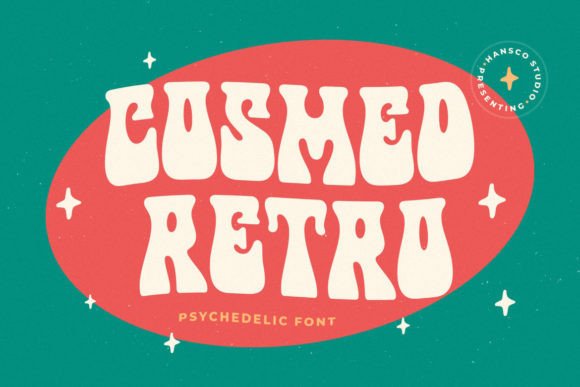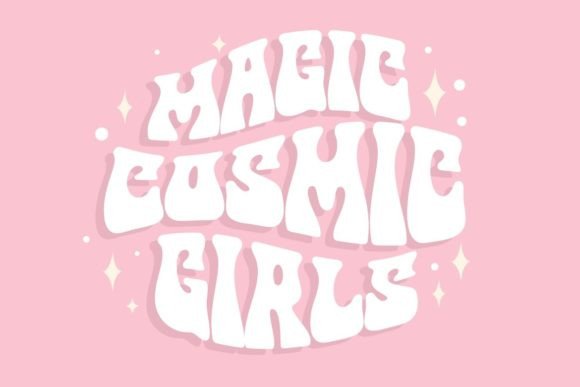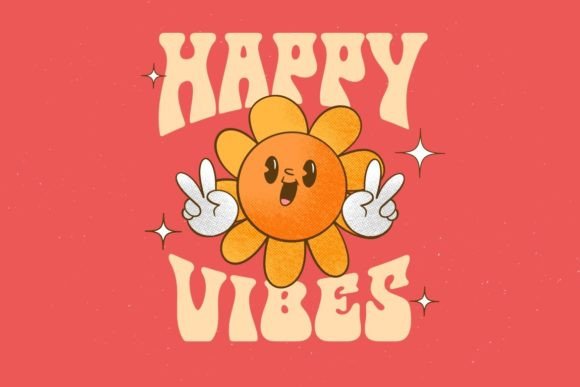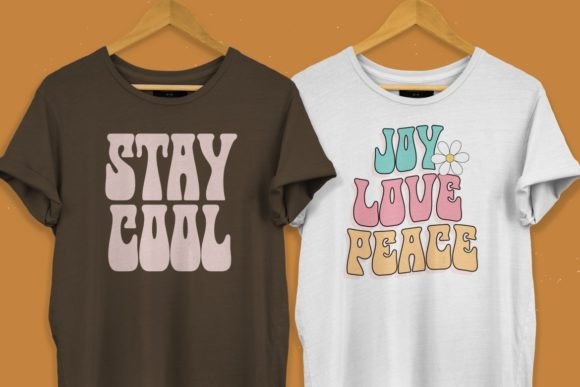
Cosmed Retro Font
About the Cosmed Retro Font
Let us introduce you to Cosmed Retro Font, where timeless design meets modern craftsmanship. Cosmed Retro font is a retro psychedelic font style with a wavy touch. Use this display font to add that special retro touch to any design idea you can think of! It is suitable for logotype, Stickers, Packaging design, Cricut Project, headlines, brand identity, t shirt or apparel industry, posters, magazines, books, YouTube, Instagram, websites, or any of your creative design projects.
Cosmed Retro’s playful, bold energy makes it ideal for headlines, posters, and branding projects requiring a vintage, psychedelic feel. It excels in short, impactful text applications like logos and packaging where its distinctive wavy forms create a strong visual identity. However, its low x-height and unconventional letterforms make it unsuitable for body text or UI elements requiring high readability.
Pairing Cosmed Retro with a clean sans-serif like Futura or a geometric sans-serif like Bebas Neue provides a contemporary counterpoint, balancing its retro style. For a softer contrast, consider pairing it with a script font like Pacifico for a more whimsical feel, or a classic serif like Garamond for a touch of refined elegance.
The font’s overall personality is best described as vibrant and nostalgic, making it a strong choice for brands targeting a younger demographic or those with a retro-inspired aesthetic. Avoid using it in contexts demanding sophistication or minimalism.